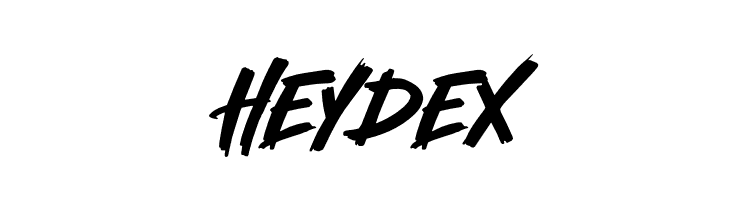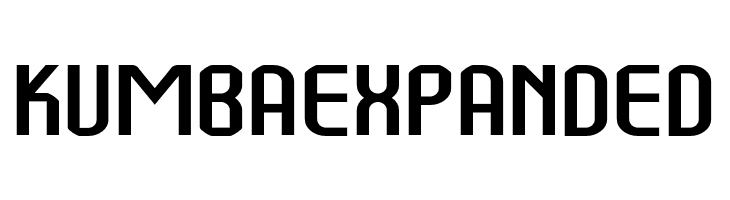
A playful, bold script font with flowing, connected letterforms.
A playful, hand-drawn font with sketchy, irregular lines and a casual, artistic style.
A bold, angular font with a futuristic and dynamic style.
A playful, casual handwritten font with smooth, rounded lines.
A dynamic, brush-style font with sharp, angular strokes and a modern flair.
A lively and expressive script font with fluid, connected letterforms and medium contrast.
A bold, italicized font with a distressed, vintage texture.
A futuristic, segmented font with a digital and modern aesthetic.
A geometric, modern font with clean lines and sharp angles.
A bold, decorative blackletter font with intricate, angular letterforms.